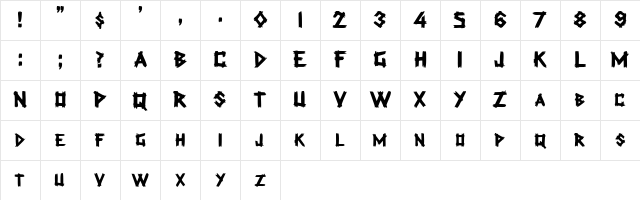
Angles Regular Free Font
Angles Regular
Angles Family
Design Context for Angles
Angles is a composed and adaptable typeface that performs quietly and consistently across a wide range of design contexts.